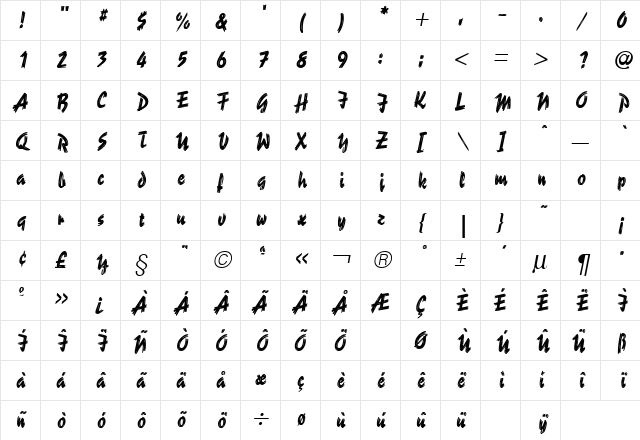
Reporter Regular Free Font
Reporter Regular
Design Context for Reporter
Reporter is a composed and adaptable typeface that performs quietly and consistently across a wide range of design contexts.